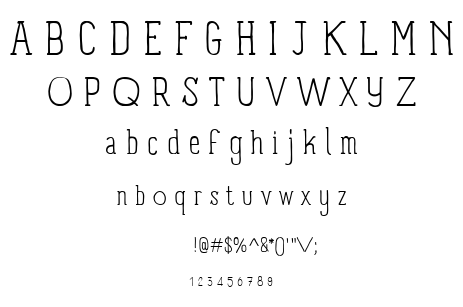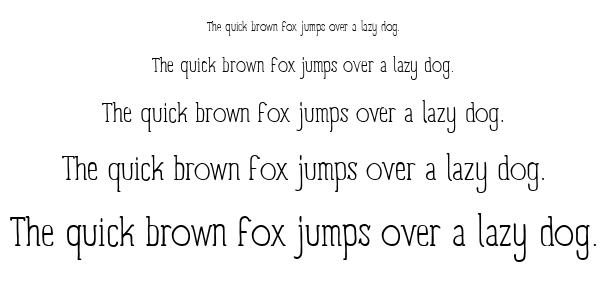
Panforte Serif
Panforte Serif is a fancy Serif Slab font with 6 body. Created by Debora Manetti. It is coordinated, compatible and based on Panforte font collection by Zetafonts.